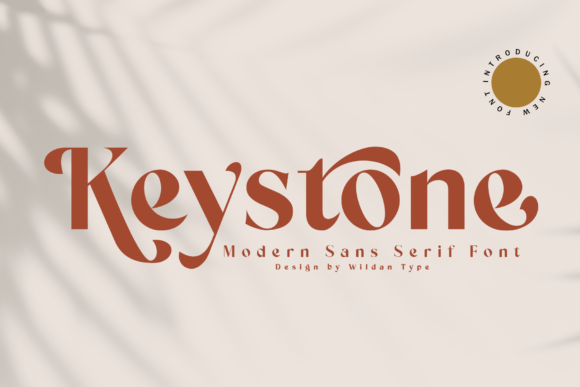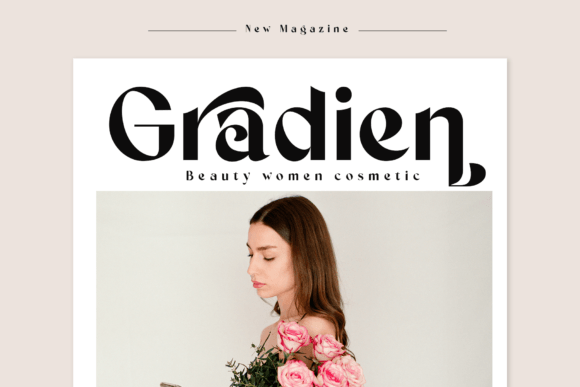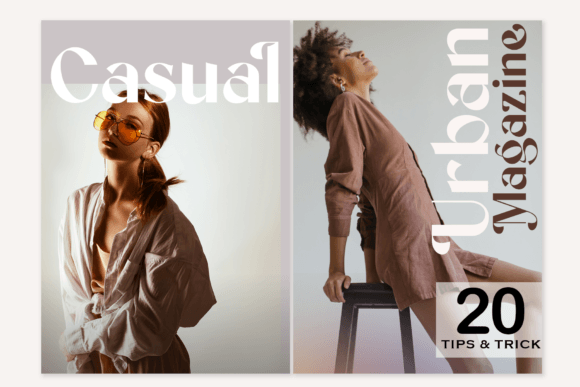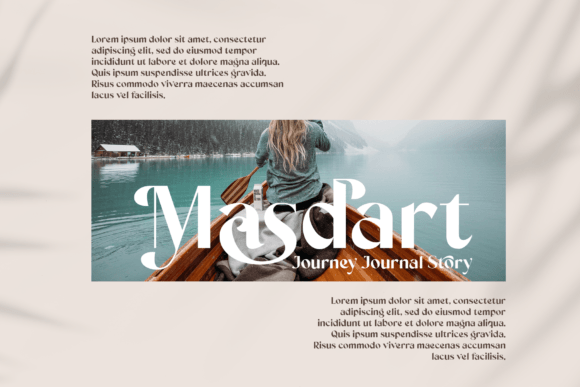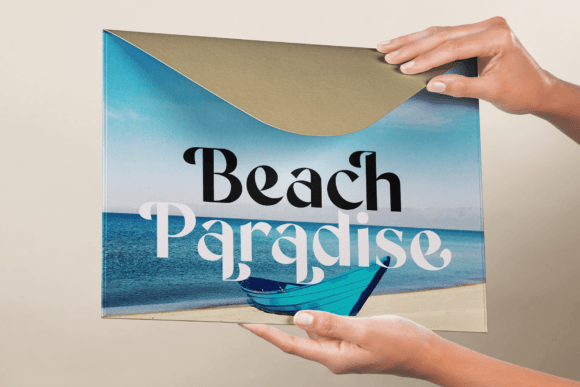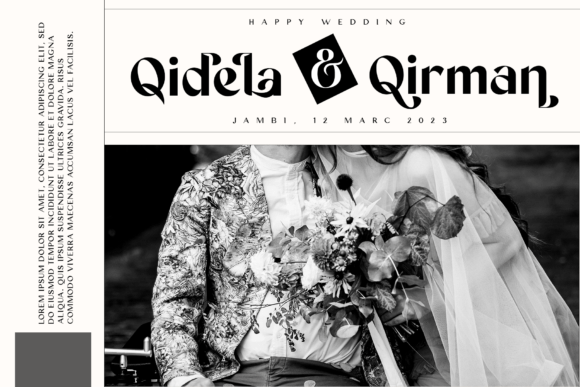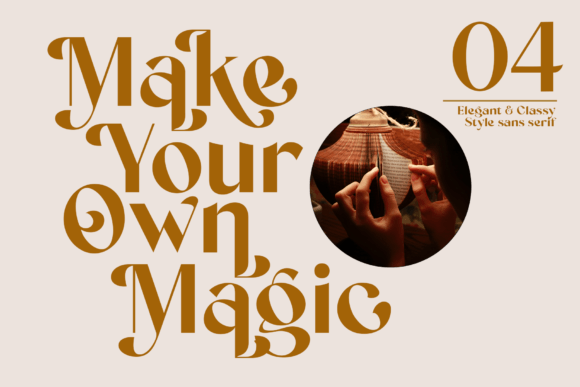
The Perfect Fit for Your Next Design Project
You know that feeling when you’re brainstorming ideas for a new design project, and suddenly, the perfect font pops into your head? It’s like a lightbulb moment – everything clicks into place, and you can envision the entire project unfolding before your eyes. For designers like you, finding that elusive font can make all the difference between a good design and a great one.
Enter the Keystone Font, a modern and simple serif font designed to elevate your branding projects, fashion designs, and editorial work. With its classy and understated style, Keystone Font is perfect for logo signs, magazine headings, and even T-shirts. And with PUA encoding, you can access all the glyphs and swashes with ease, giving you the flexibility to customize your designs to perfection.
Key Features of Keystone Font
- Unique Character Set: The font features a unique character set, including alternate glyphs, ligatures, and swashes, adding a touch of elegance to designs.
Designer Review: Keystone Font
As a designer, I’ve had the chance to work with a wide variety of fonts, and Keystone Font is definitely one that stands out. Here’s my honest take:
- Keystone Font has a unique, modern aesthetic that’s perfect for trendy designs.
- The font is highly legible, even at smaller sizes, making it ideal for body text.
- The font family includes a range of weights and styles, giving you plenty of flexibility for your design projects.
- Keystone Font is highly customizable, allowing you to fine-tune the spacing and typography to suit your needs.
- Keystone Font may not be the best choice for formal or traditional designs, as it has a distinctly modern feel.
- Some users may find the font’s unique aesthetic to be overwhelming or difficult to read.
Overall, I think Keystone Font is a solid choice for designers looking for a modern, trendy font. While it may have some limitations, its unique aesthetic and high legibility make it a great option for a wide range of design projects.
Getting the Most Out of Keystone Font
Keystone Font is ideal for creating a modern and sleek aesthetic. To get the most out of it, use it in conjunction with clean and minimalist design principles.
Keystone Font is commonly used in:
- Business cards and resumes.
- Brand logos and typography.
- Infographics and data visualizations.
Alternatives to Keystone Font
Montserrat is a popular sans-serif font that is highly versatile and can be used for a wide range of designs, from body text to headings. It’s particularly well-suited for modern and minimalist designs. Compared to Keystone Font, Montserrat has a more geometric and clean aesthetic, making it a great choice for digital products and interfaces.
Lato is a sans-serif font that is highly legible and easy to read, making it perfect for body text and long-form content. It’s a great choice for designs that require a clean and neutral aesthetic. Compared to Keystone Font, Lato has a more rounded and friendly feel, making it a great choice for designs that require a more approachable tone.
Arial
Arial is a classic sans-serif font that is highly legible and versatile. It’s a great choice for designs that require a neutral and timeless aesthetic. Compared to Keystone Font, Arial has a more traditional and conservative feel, making it a great choice for designs that require a more classic tone.
Inter is a modern sans-serif font that is highly legible and versatile. It’s a great choice for designs that require a clean and minimalist aesthetic. Compared to Keystone Font, Inter has a more sleek and modern feel, making it a great choice for digital products and interfaces that require a high level of sophistication.